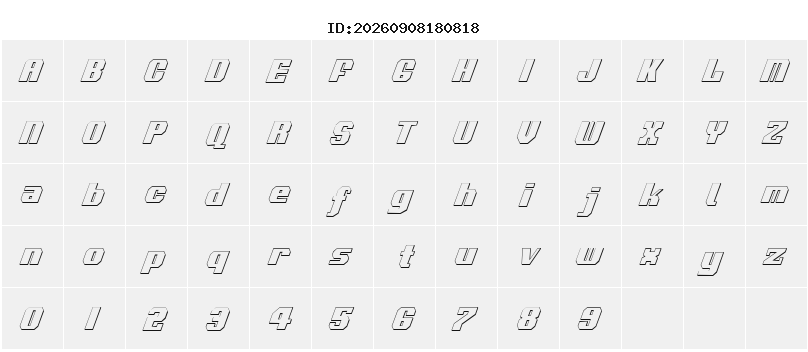
Voortrekker 3D Condensed Italic Preview
• Font Name: Voortrekker 3D Condensed Italic
• Font Style: Condensed Italic
• Full Font Name: Voortrekker 3D Condensed Italic
About Voortrekker 3D Condensed Italic.ttf
Voortrekker 3D Condensed Italic.ttf is a modern, elegant sans-serif font designed for ultimate readability and visual harmony. Perfect for branding, headlines, web design, and print materials.